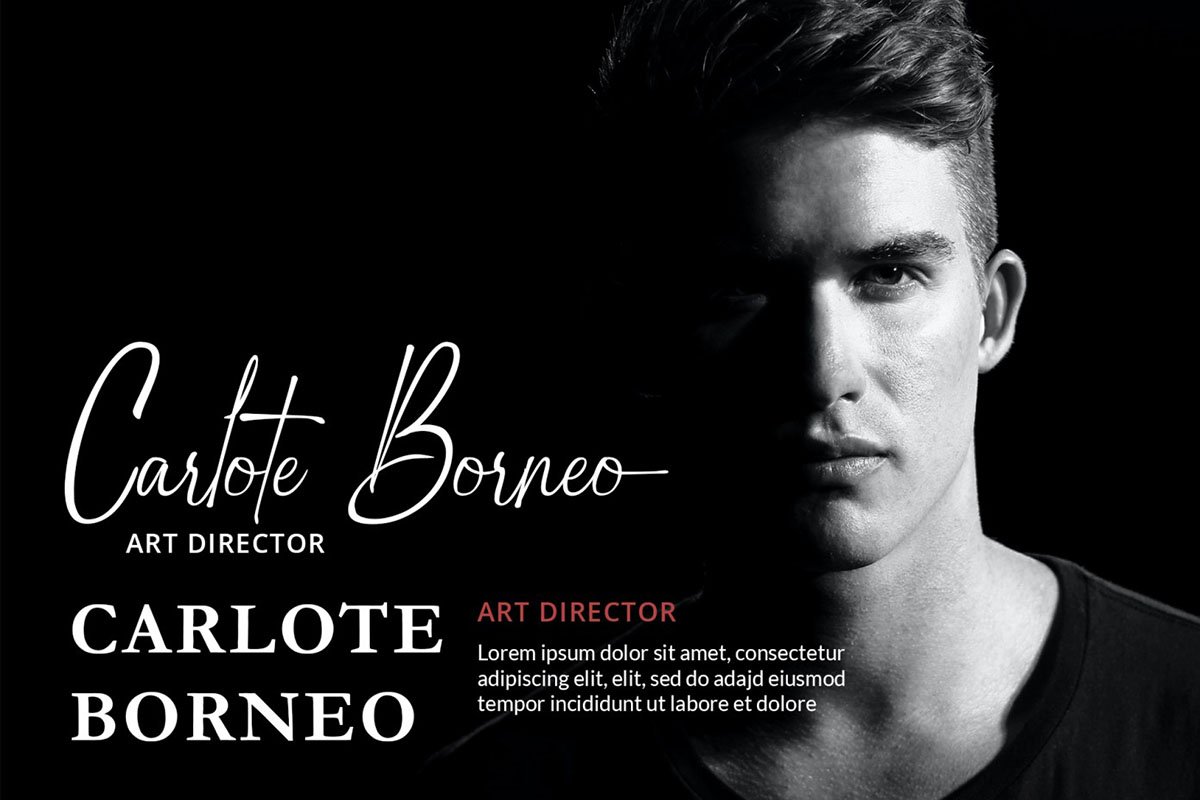
Zattany Script Font is a stylish Signature font with contemporary and sophisticated accents. It is perfect for logo/branding projects, large header text and product packaging.
Zattany